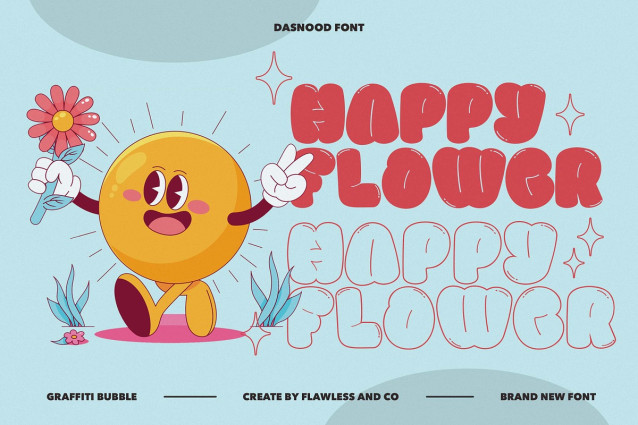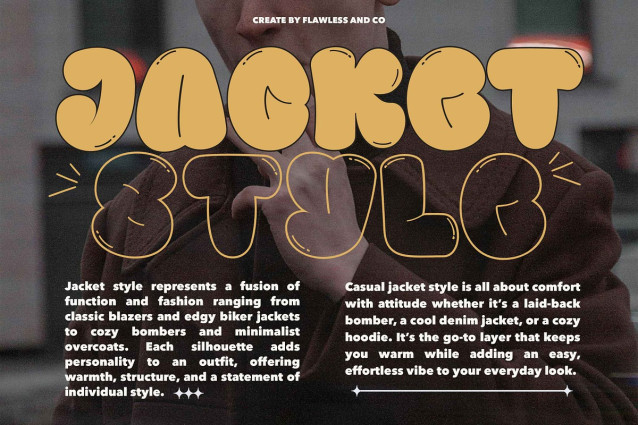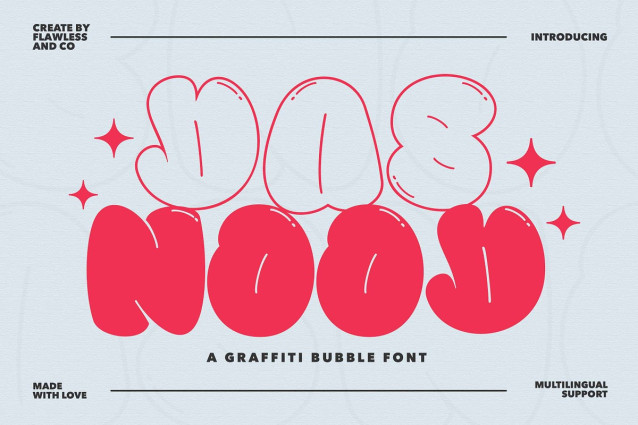
Dasnood Bubble Font
Dasnood Bubble Font a graffiti-inspired bubble font bursting with energy and personality. With its chunky shapes and cartoonish attitude, DASNOOD is made to stand out—perfect for projects that need a bold, expressive, and youthful vibe. From street-style posters to fun branding, merchandise, kids’ projects, or social media content, DASNOOD brings a pop of urban fun wherever it goes. It’s loud, lovable, and made to move your message with a smile.